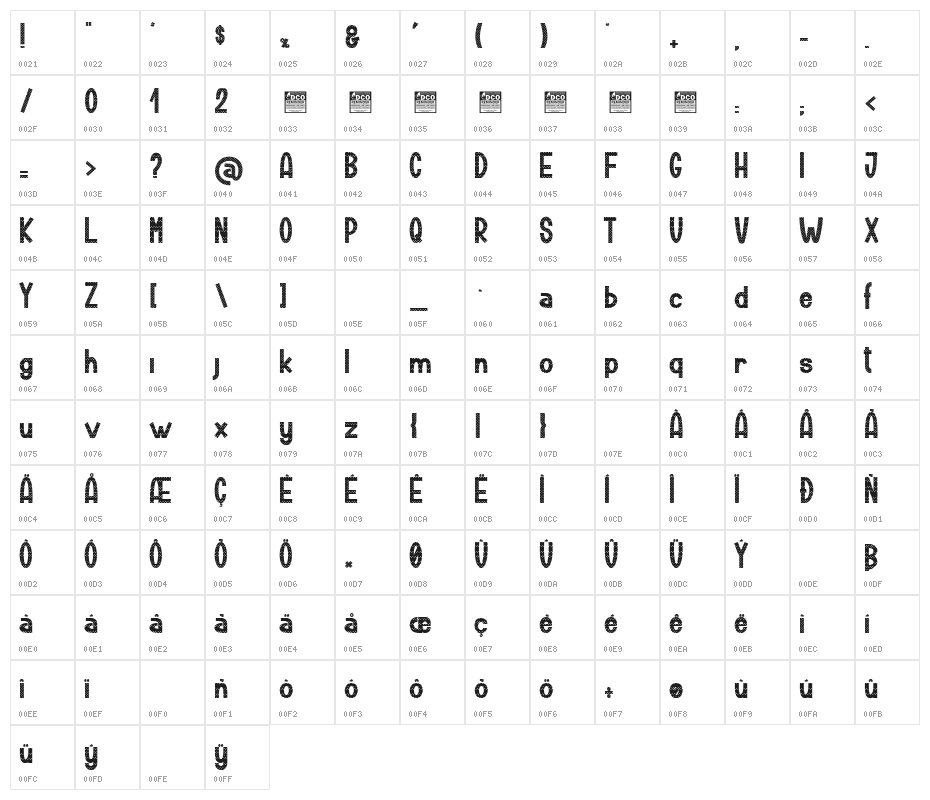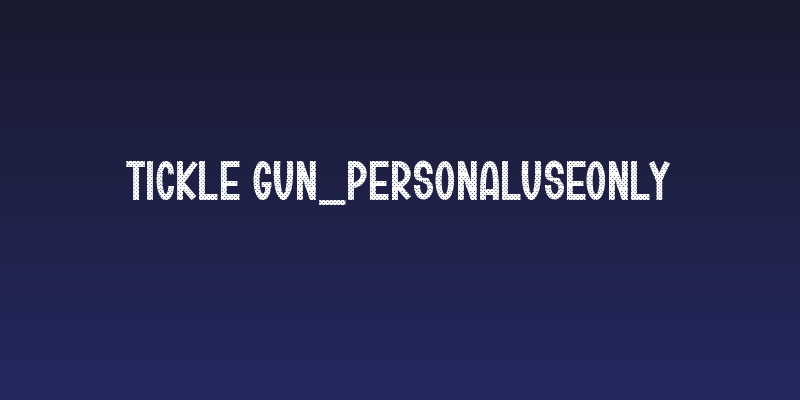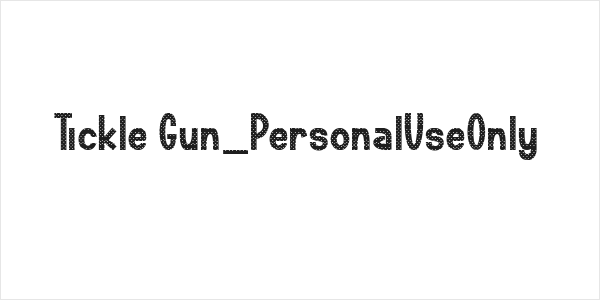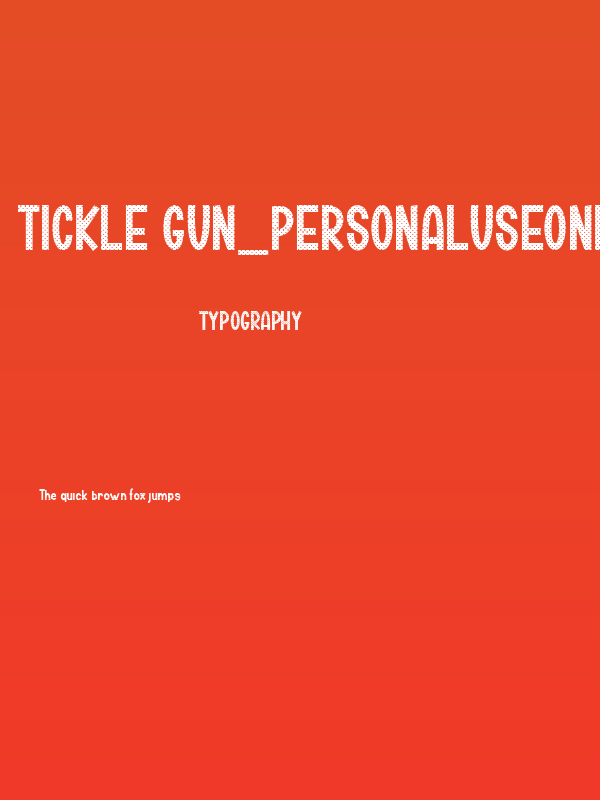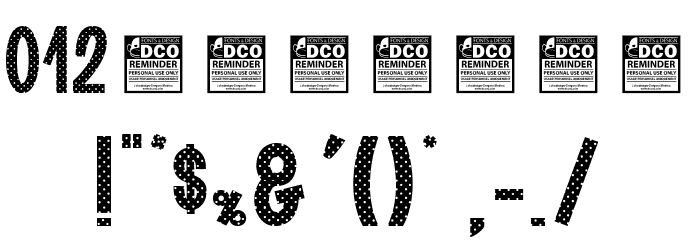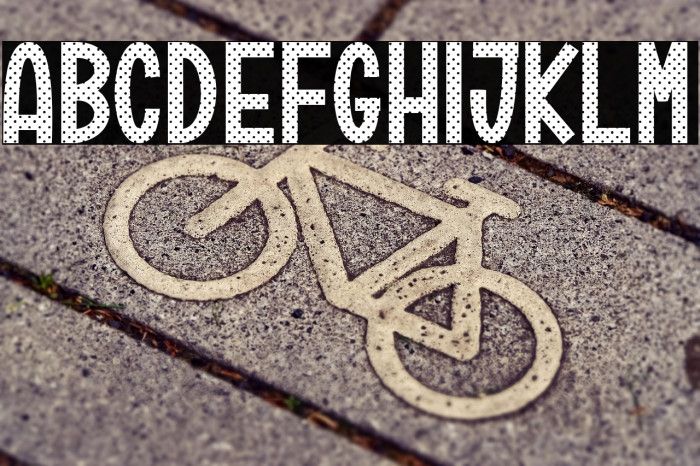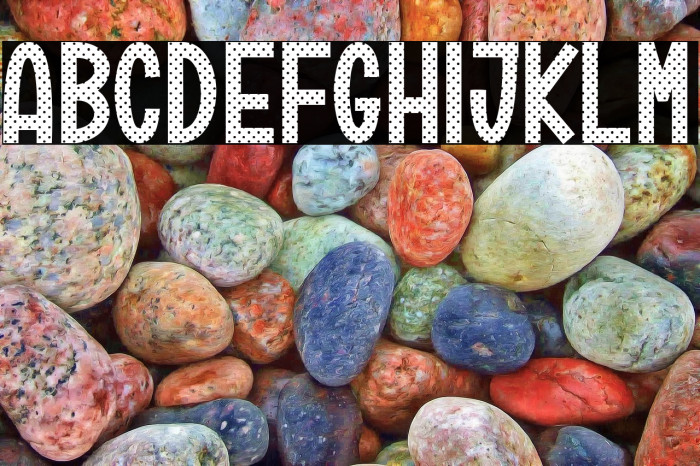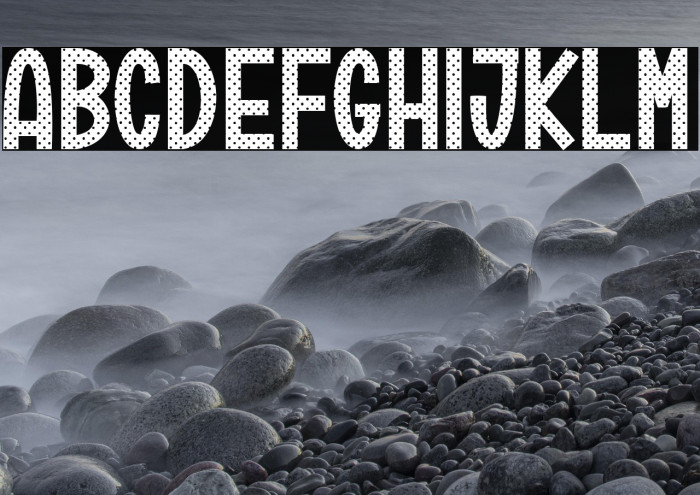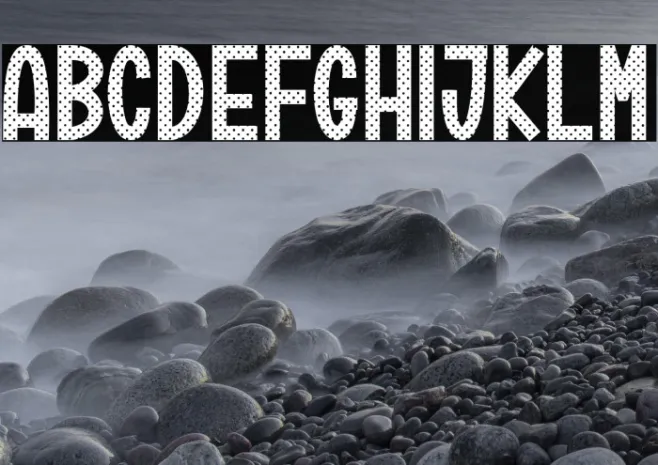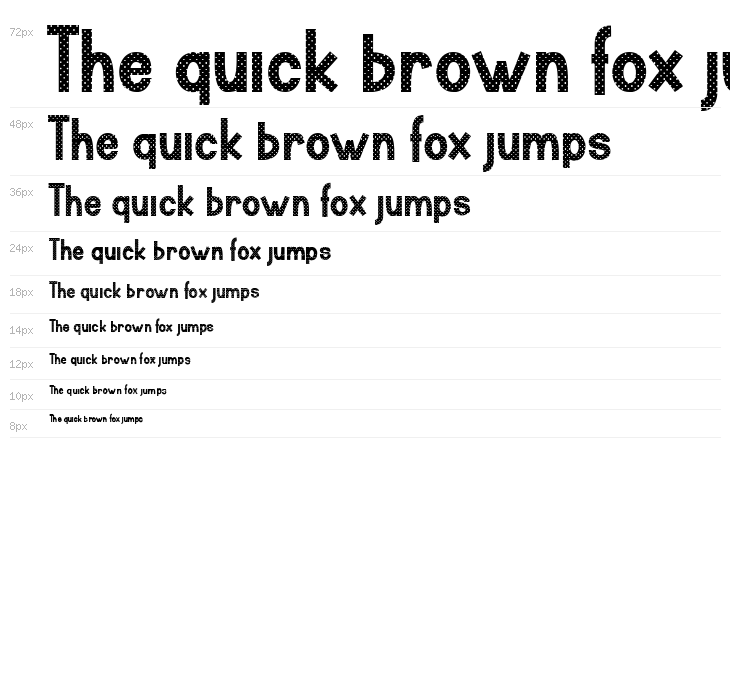
Tickle Gun_PersonalUseOnly Font
Tickle Gun_PersonalUseOnly Description
This playful and whimsical font features bold, rounded letters adorned with a polka dot pattern, creating a fun and lively appearance. The uppercase and lowercase letters maintain a consistent style, with a uniform thickness and rounded edges that enhance its friendly and approachable look. The numbers and special characters follow the same design, ensuring a cohesive appearance across all elements. This font's unique decorative style makes it ideal for projects that require a touch of creativity and fun.
| Proposed Projects | Ideal for children's books, party invitations, playful branding, and creative posters. |